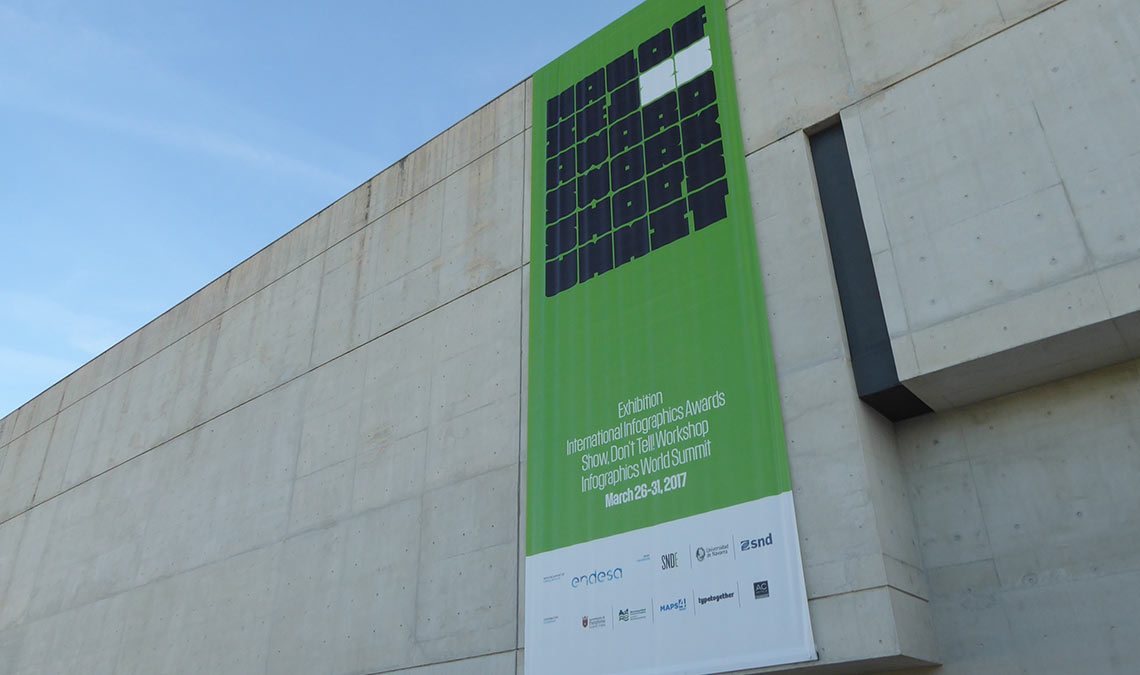
Malofiej 2017
TypeTogether travelled to sunny Pamplona, Spain, to attend ‘Malofiej, 25 Infographics World Summit’ for the first time.
Malofiej —‘Malofiej Awards and World Summit’ are named after the Argentinian cartographer considered to be a pioneer in infographics Alejandro Malofiej— is a conference organised by the Society for News Design (SND) focusing on the design of information; the speakers and attendees work for the best newspapers and digital platforms and their job is to make information accesible and understandable by using graphics. During the conference the Malofiej Awards are announced, which are considered to be the Pulitzer of infographics.
It is not new that technology shapes how information is provided to the reader. Let’s remember for instance that newspapers had no images until printing provided a fast and cheap solution, or the lack of colour until quite recently, etc. The latests advances in digital screens, portable devices, fast broadband and wifi networks and smaller microchips, have transformed the content of an entire newspaper into a gadget that fits into our hands reading in very different environments. This is the challenge for information designers now; how to design for different media, different platforms, devices, screen sizes, addressing the same complex information and distilling it into something readable and informative yet still engaging with the reader.
Wonderful views at the Facultad de Comunicación at the University of Navarra, Pamplona.
Throughout the sessions it was very clear that contemporary information design resides concurrently in the digital and the printed world of editorials, and how they can negotiate to provide useful content for the readers. Useful in the sense of having accessible information, for being able to make informed decisions before voting, and why not, to be entertained.
A stronger emphasis could be made on the role of typography in information design. It is a fundamental piece of the design, and in the words of Sarah Slobin —closing speaker at Malofiej and editor at Quartz—, typography is an object. If there is a gap between infographists and type designers our task should be to close this gap by working together on the development of future typefaces and listening to the needs of the graphic, editorial and infographic designers in this particular area of design.
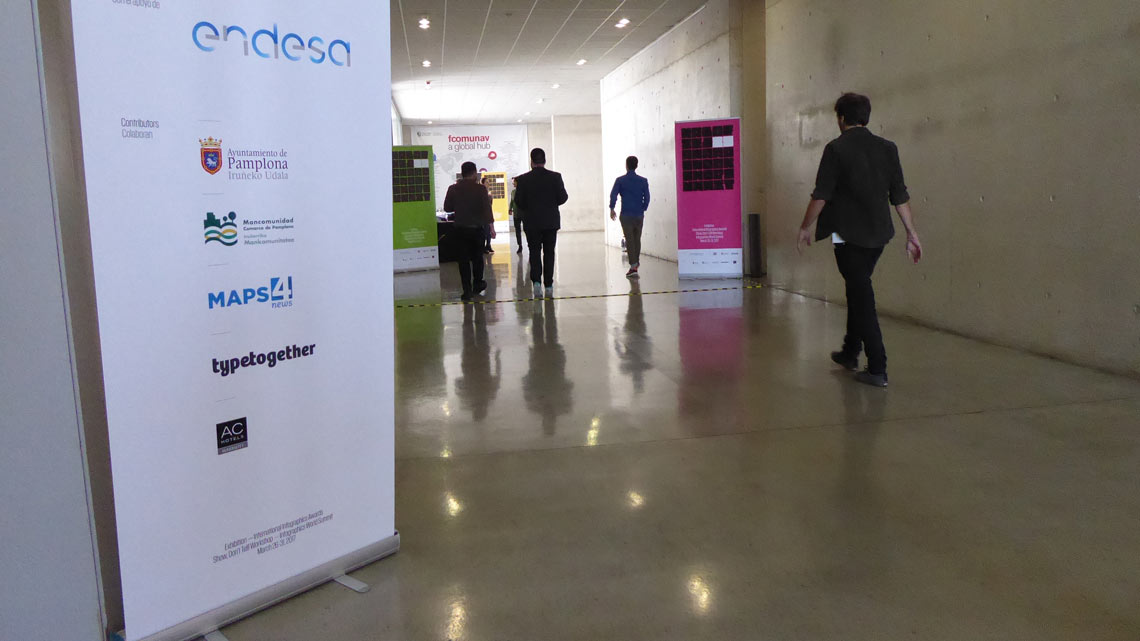
The full programme of Malofiej 2017 is available here (take a look to the custom type created by Octavio Pardo for the event), the winners of 25th Malofiej International Infographics Awards are listed here.